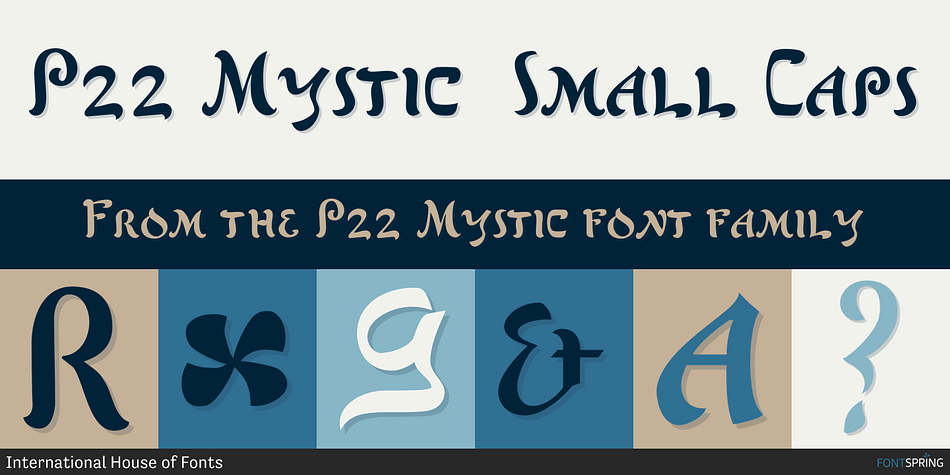
P22 Mystic Small Caps
P22 Mystic is a historical font family. This typeface has three styles and was published by International House of Fonts.
A truly mysterious and unique font invokes the look of the middle-east and that can actually tell your fortune! The OpenType Pro version really does work sort of like a magic eight-ball: while you have Contextual Alternates turned on—and type in any question followed by a question mark—it will give you an answer. Really! All this plus small caps, oldstyle figures, and ligatures.